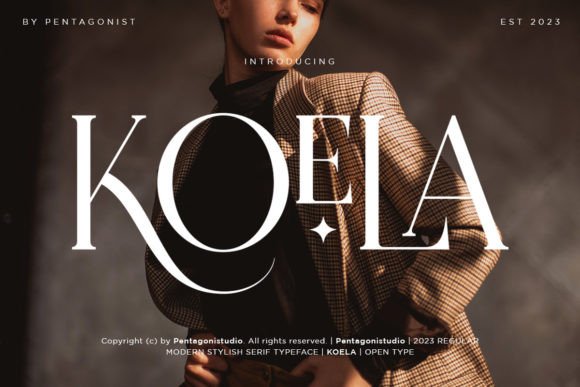
Introducing Koela Font, the epitome of modern elegance and creativity. Developed by the talented team at Pentagonistudio, this serif font is designed to captivate and inspire. With its stylish alternates and ligatures, Koela Font adds a touch of magic and romance to any project, reinventing the traditional look and feel of a classic serif font.
Are you tired of using the same old fonts that everyone else is using? Koela Font is here to elevate your designs and give them a fresh, contemporary edge. Whether you're working on a branding project, a website, or even a wedding invitation, this font will make your work stand out from the crowd.
With its exciting variations, Koela Font offers endless possibilities for creative expression. From bold and striking headlines to elegant and sophisticated body text, this font has the versatility to adapt to any design concept. It's like having a whole collection of fonts in one!
But Koela Font is not just about looks; it's also about functionality. The font is carefully crafted to ensure readability and legibility, even at smaller sizes. So, whether your audience is viewing your work on a computer screen or in print, they will be able to appreciate the beauty and clarity of this font.
Downloading Koela Font is like unlocking a world of creative opportunities. Imagine the impact it will have on your next project, grabbing attention and leaving a lasting impression. Its unique blend of modernity and elegance will attract users who are searching for the perfect font to enhance their work.
So why settle for ordinary when you can have extraordinary? Koela Font is the answer to all your font needs. It's a game-changer, a trendsetter, and a must-have for anyone looking to make a statement with their designs. Don't miss out on the chance to elevate your work and impress your audience.